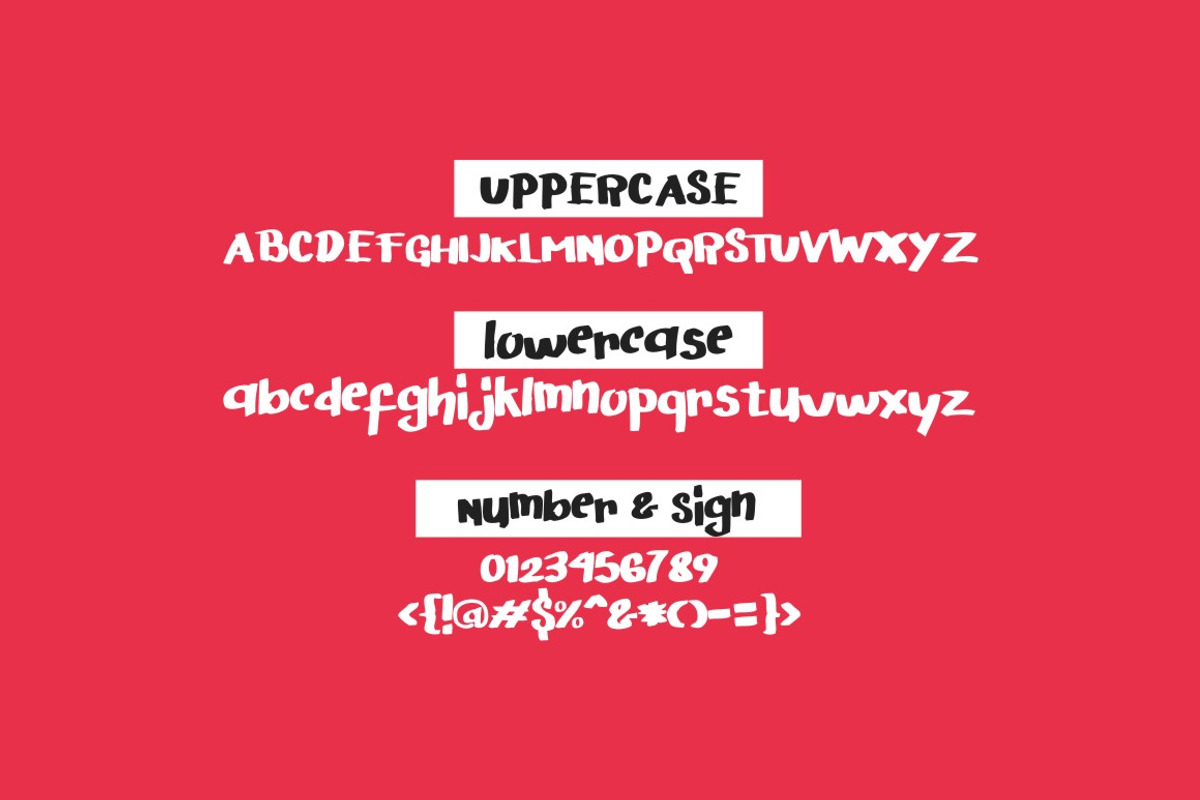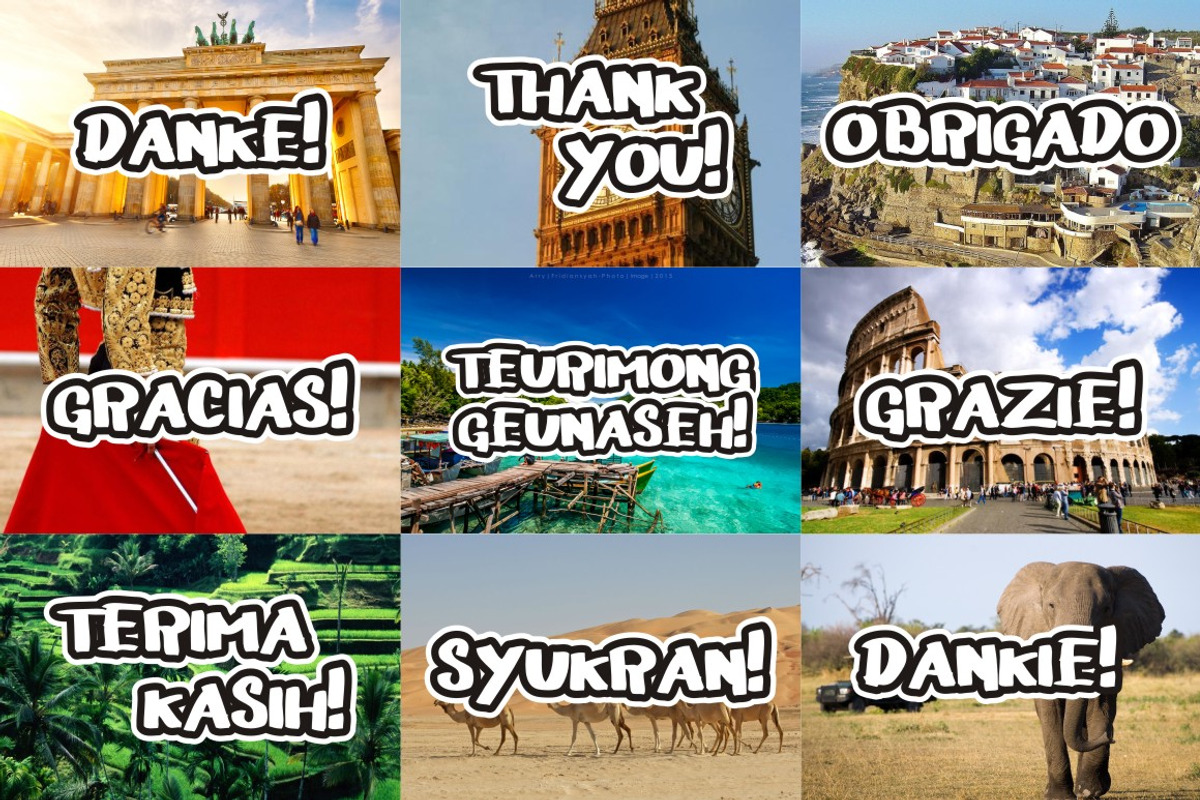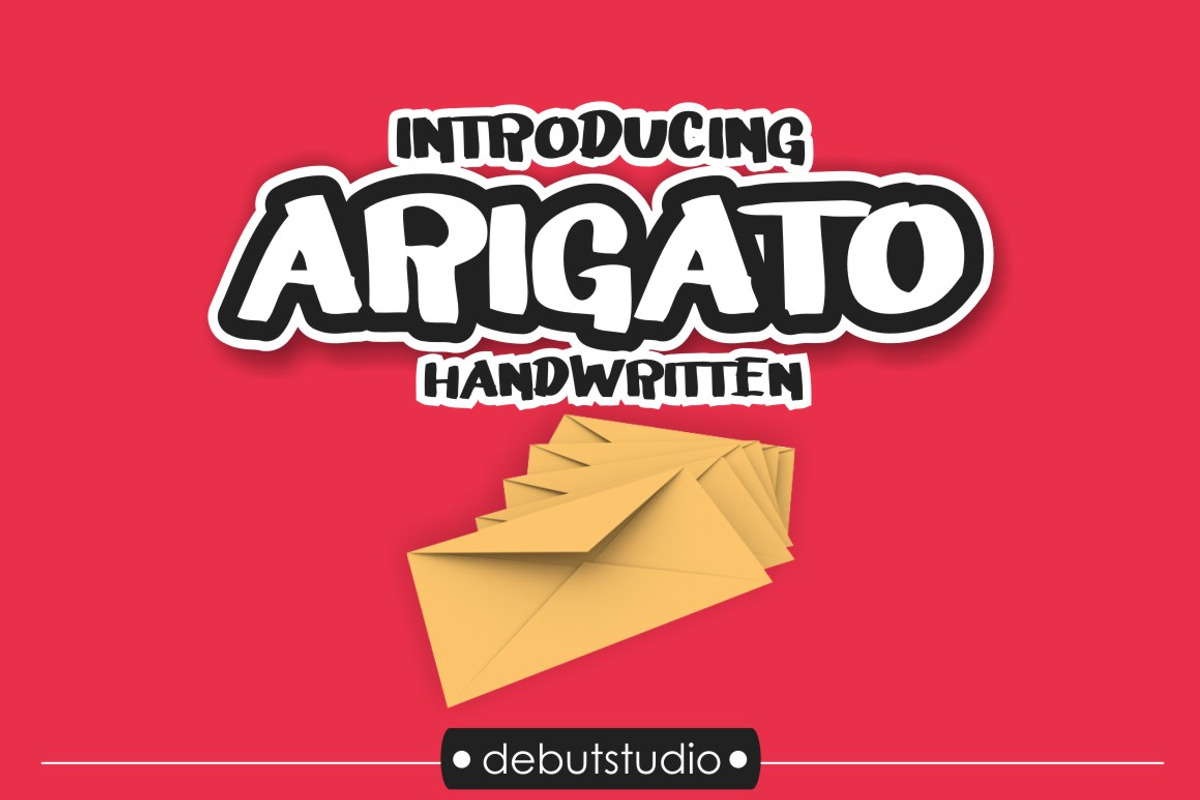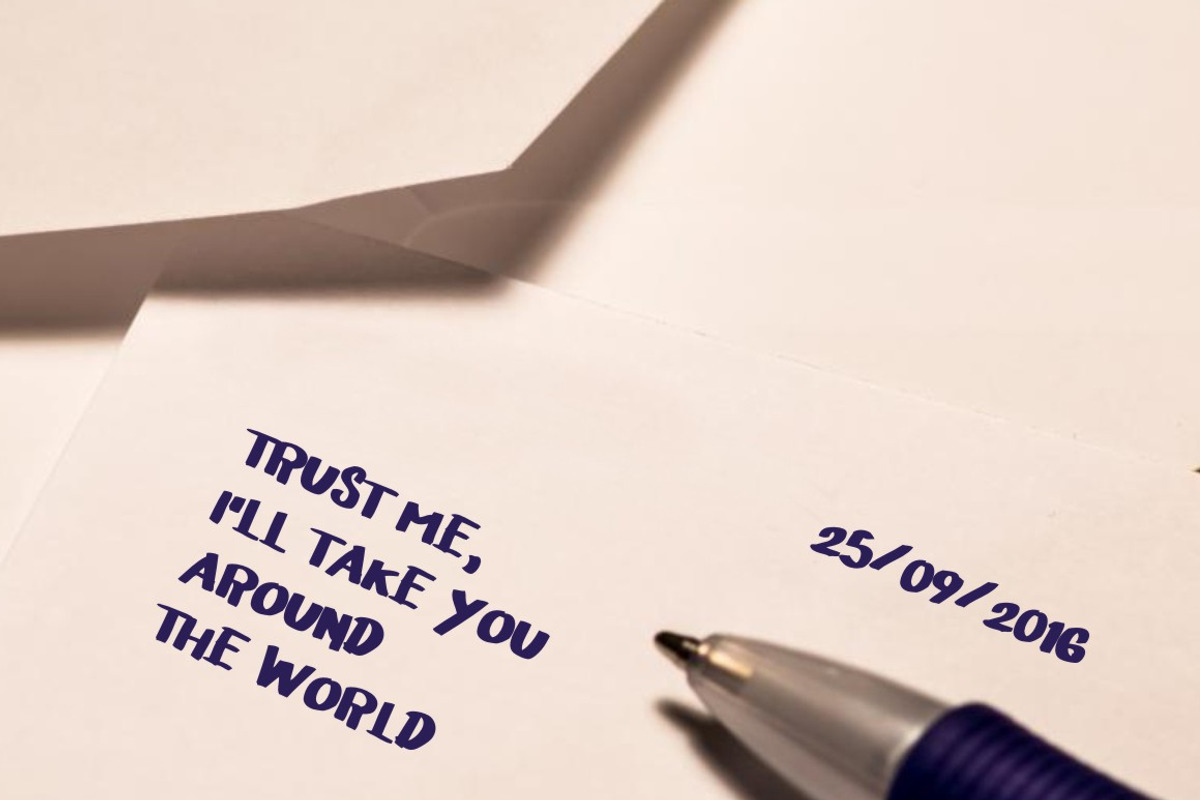
Arigato Handwritten Font
Arigato Handwritten Font by Debut Studio is a font selected for branding, posters, packaging, typography.
- Introducing Arigato Handwritten Font -- This font is my own handwriting when i write the text in envelope, i think this handwriting good for
- Arigato Regular
Why Arigato Handwritten Font is worth a look
Arigato Handwritten Font by Debut Studio fits naturally into Branding, posters, packaging, typography.